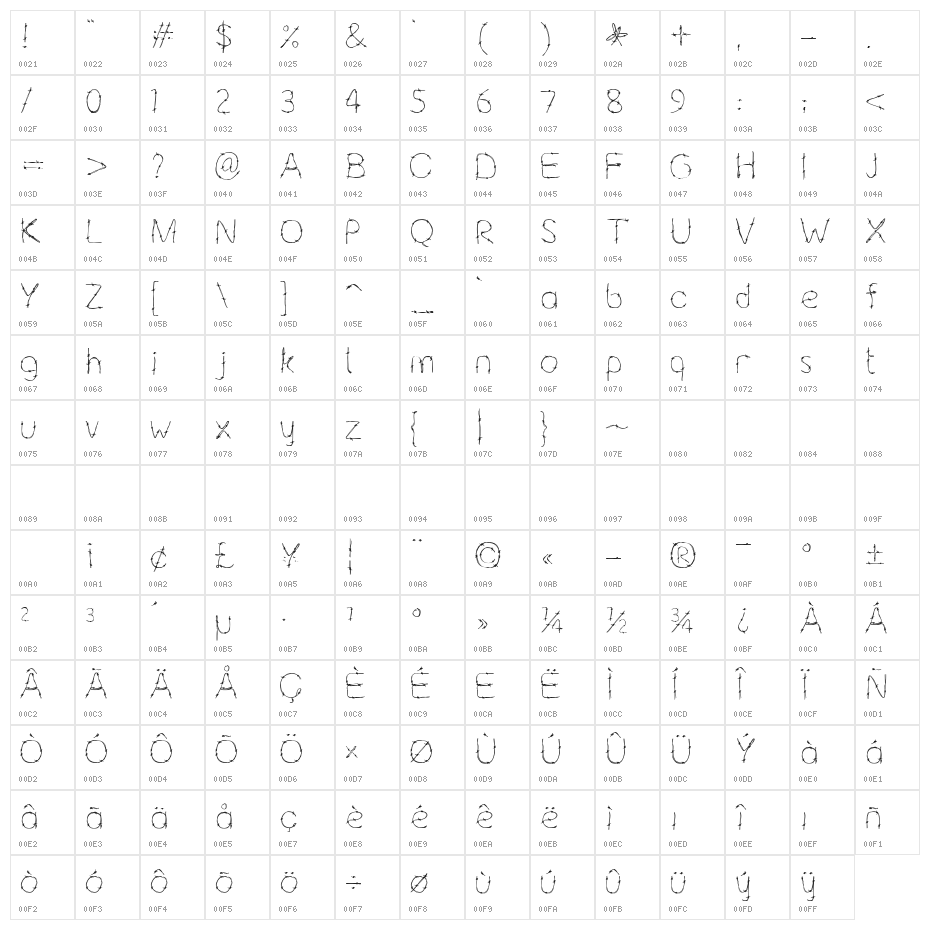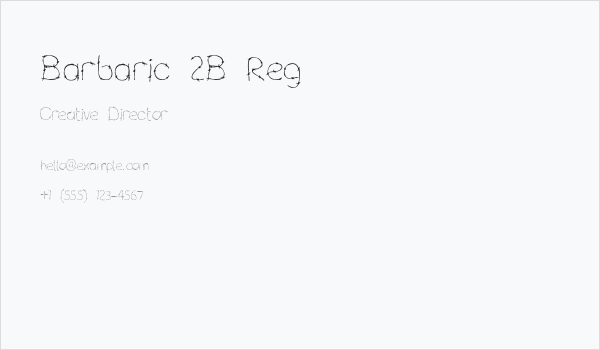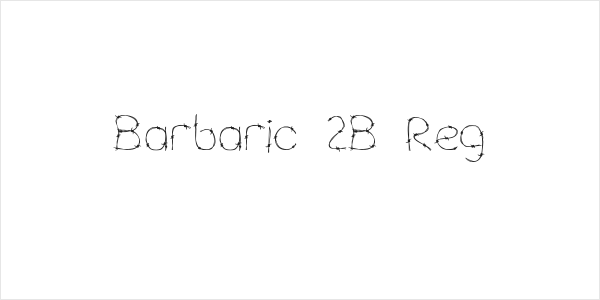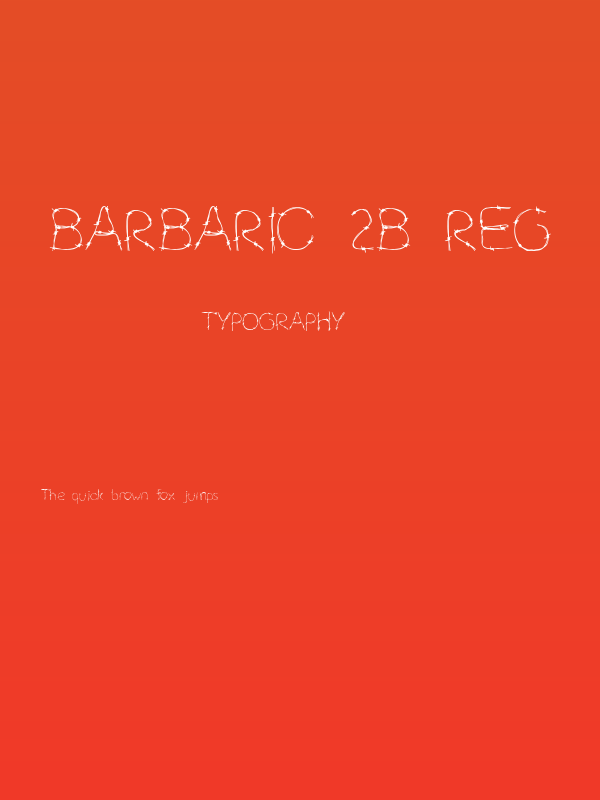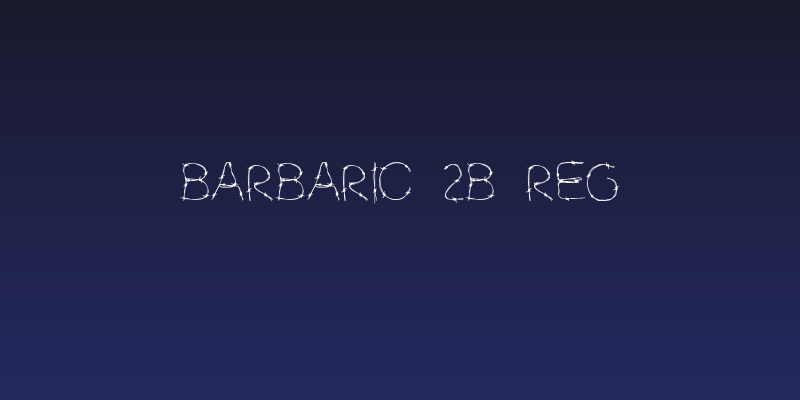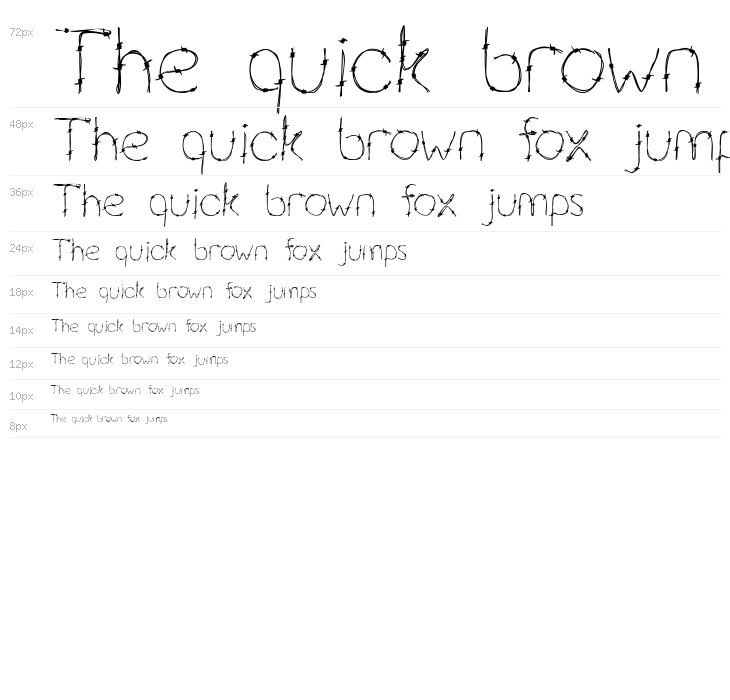
Barbaric 2B Reg Font
Barbaric 2B Reg Description
This font features a unique and edgy design, with each character resembling barbed wire. The letters are composed of thin lines with sharp, pointed accents, giving it a rugged and rebellious appearance. The uppercase and lowercase letters maintain a consistent style, while the numbers and special characters follow the same barbed wire motif. This font is highly decorative and stands out due to its intricate detailing and unconventional style, making it suitable for projects that require a bold and distinctive look.
| Proposed Projects | Ideal for themed posters, album covers, or any design needing a rebellious or industrial aesthetic. |